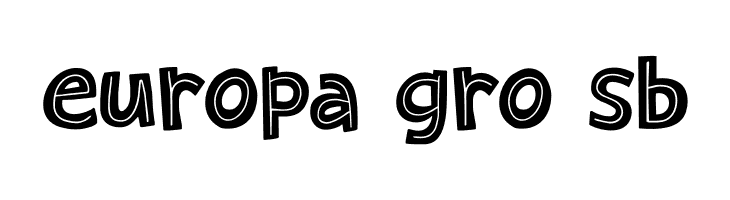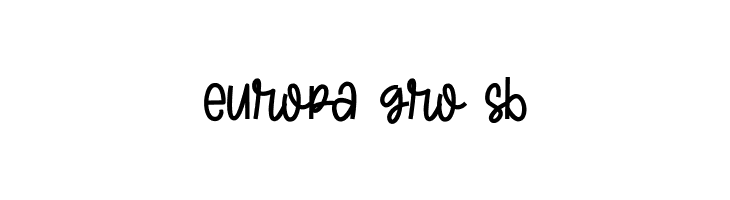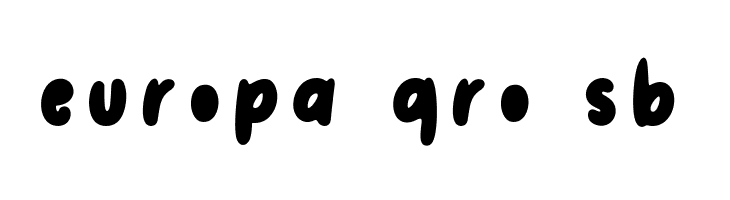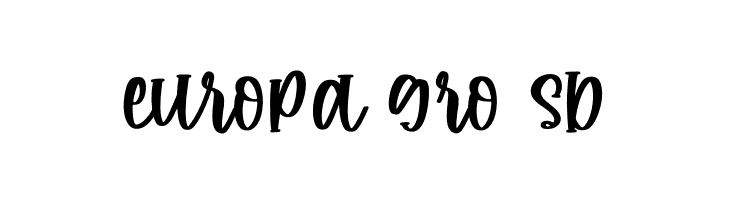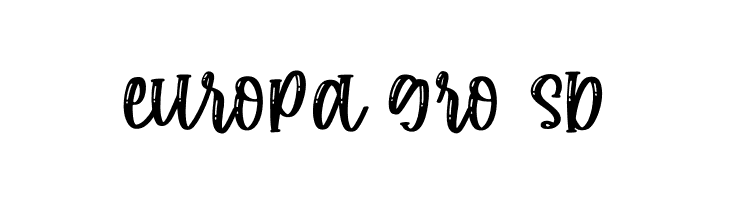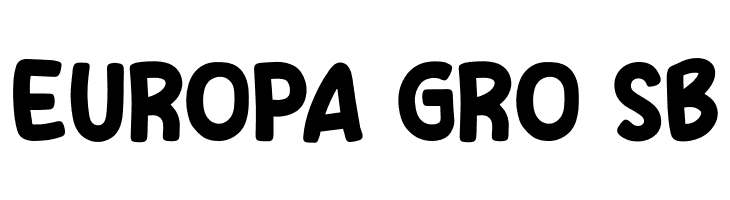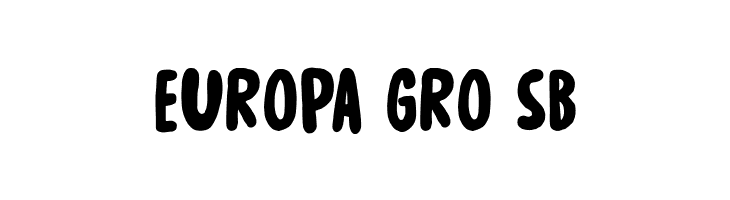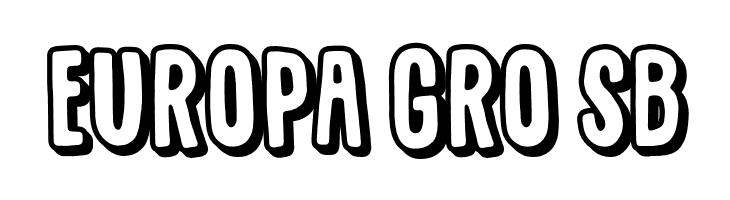
A playful, bold font with rounded, thick strokes and a hand-drawn feel.
A playful, bold font with rounded, bubbly characters and a hand-drawn feel.
A bold, handwritten font with a playful and dynamic brush-like texture.
A playful and bold font with curvy, energetic letterforms.
A playful, bold font with rounded edges and a whimsical style.
A playful, hand-drawn font with bold outlines and a whimsical style.
A bold, playful font with rounded characters and thick outlines.
A playful, rounded font with a youthful and energetic style.